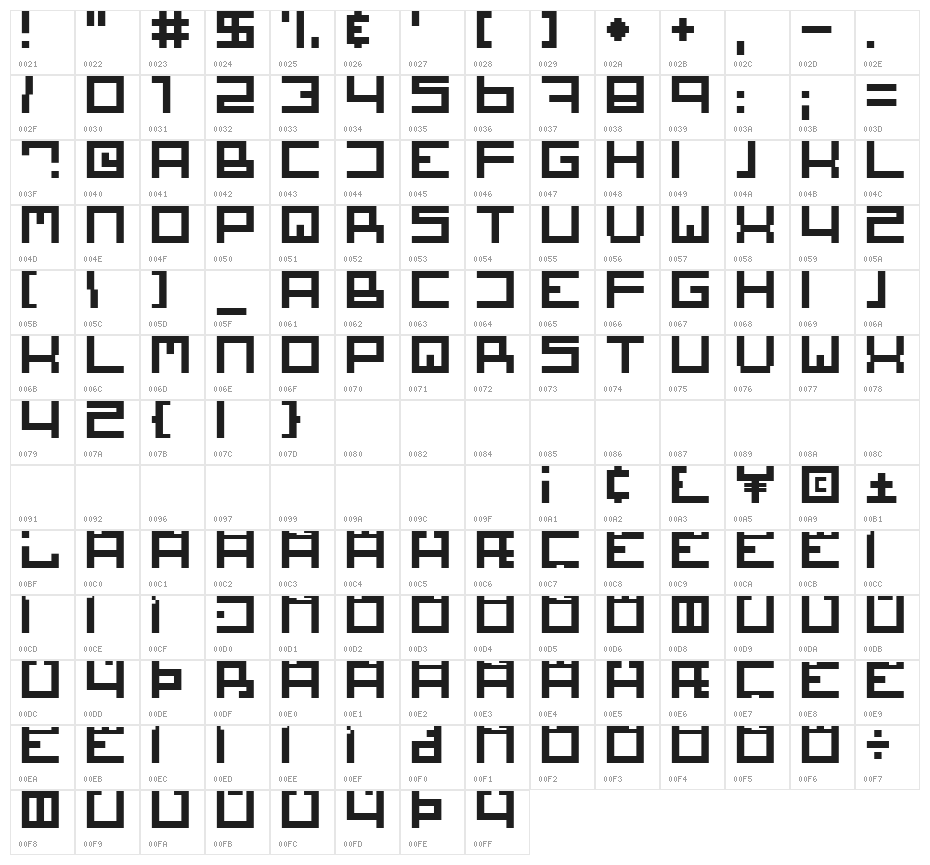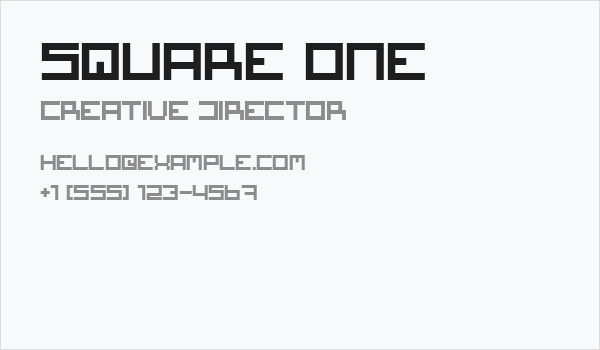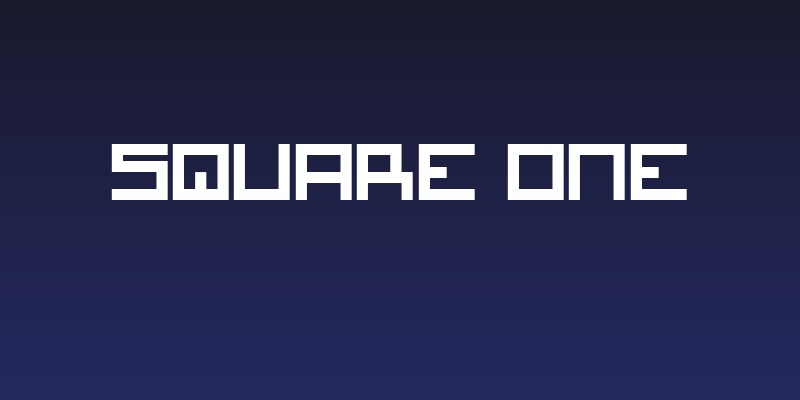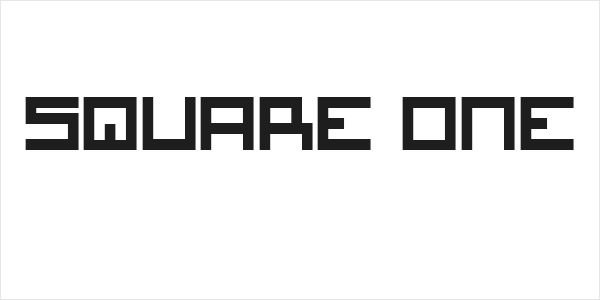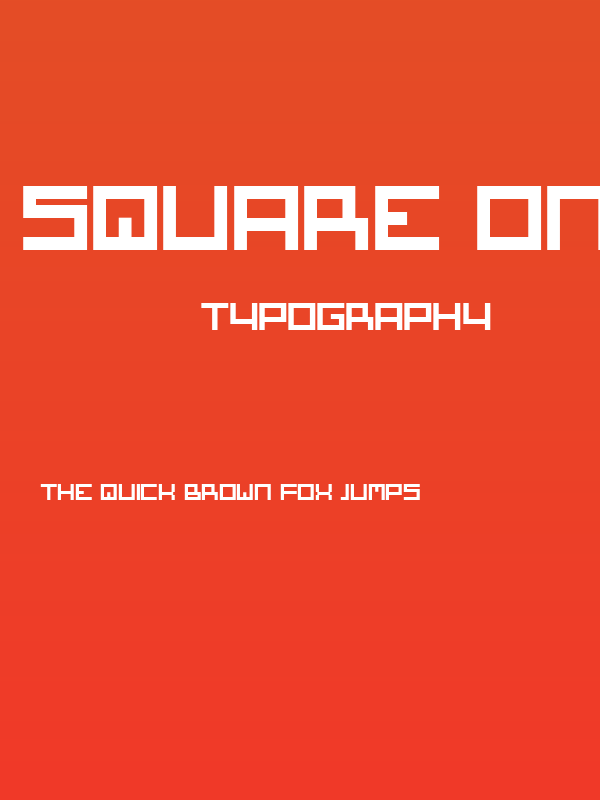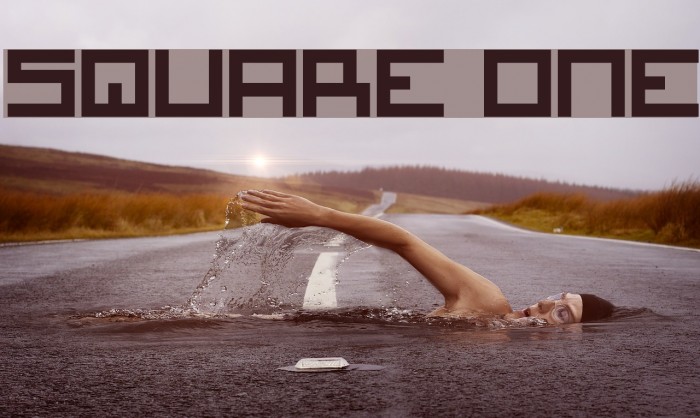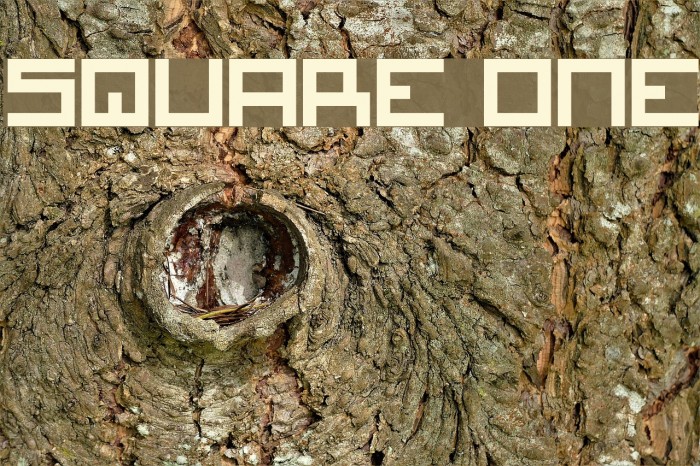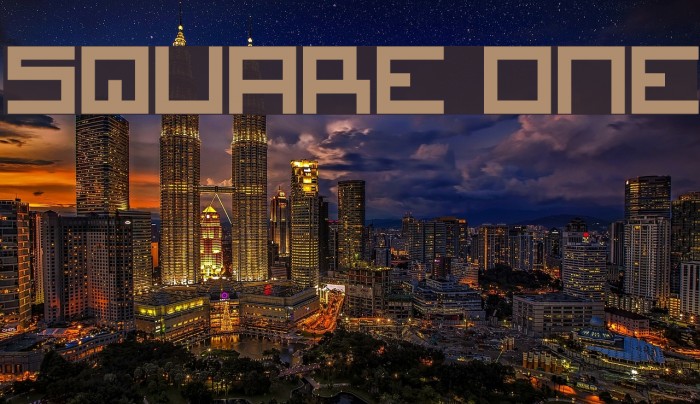
Square One Font
Square One Description
This font features a bold, geometric design with a distinctly modern and digital aesthetic. Each character is constructed with a uniform stroke width, creating a pixelated, block-like appearance reminiscent of early digital displays or retro video games. The characters are square and angular, with sharp corners and straight lines, giving the font a futuristic and technical feel. The uppercase and lowercase letters share similar dimensions, enhancing the uniformity and consistency across the typeface. The numerals and special characters maintain the same blocky style, ensuring cohesion throughout the font set. This design is highly legible and impactful, making it suitable for attention-grabbing headlines or digital-themed projects.
| Proposed Projects | Ideal for video game titles, tech-themed posters, digital interfaces, and retro-style branding. |